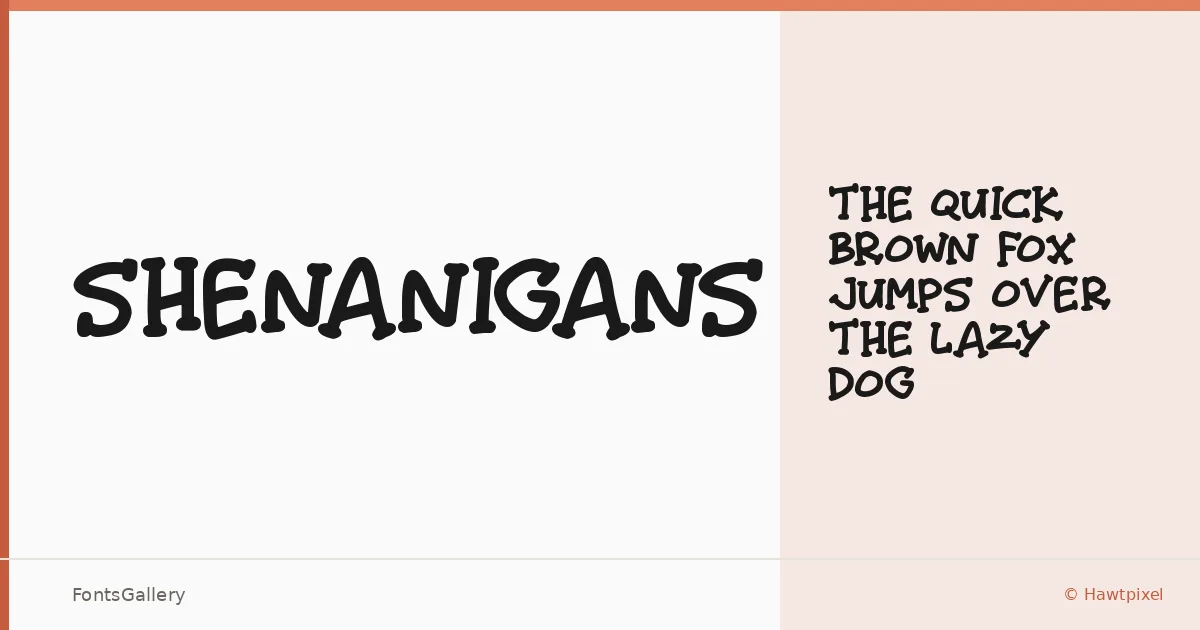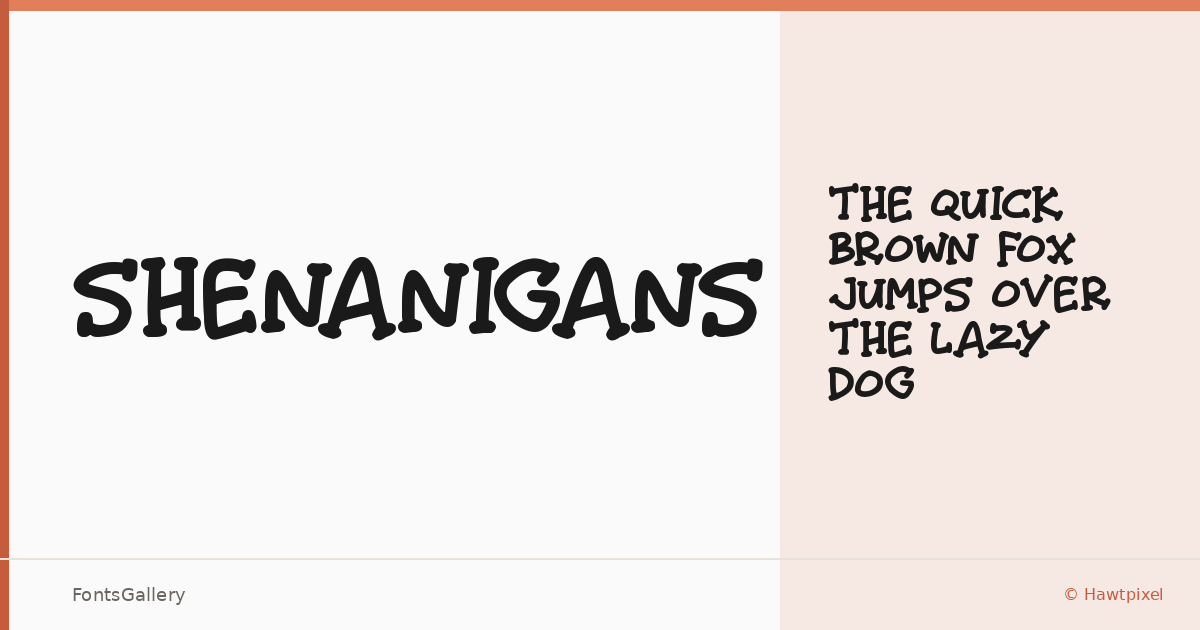
About Shenanigans Font
There is an immediate looseness to these letterforms — a hand-drawn, slightly unruly quality that feels like it was sketched with genuine enthusiasm rather than plotted on a grid. Hawtpixel's Darrell Flood built this display face in 2018, and the result sits comfortably in that territory where bold meets playful without tipping into chaos. The single Regular cut ships in both TTF and OTF formats.
This is a display typeface with a distinctly whimsical personality — the strokes carry enough weight to read at large sizes while the irregular, hand-crafted edges keep things light and informal. It does not pretend to be a workhorse text face, and that honesty is part of its charm. The forms have the kind of character that works when you need energy on the page rather than quiet authority.
It earns its keep in children's book titling, poster headlines, logo lockups, and the kind of social media graphics or T-shirt designs where personality carries the composition. For secondary type, the clean geometry of Josefin Sans or Asap provides a grounding contrast, while Helvetica keeps things straightforward; if the brief calls for something with more editorial weight, Canela or ABC Arizona give a sophisticated counterpoint to the rough-edged display energy.